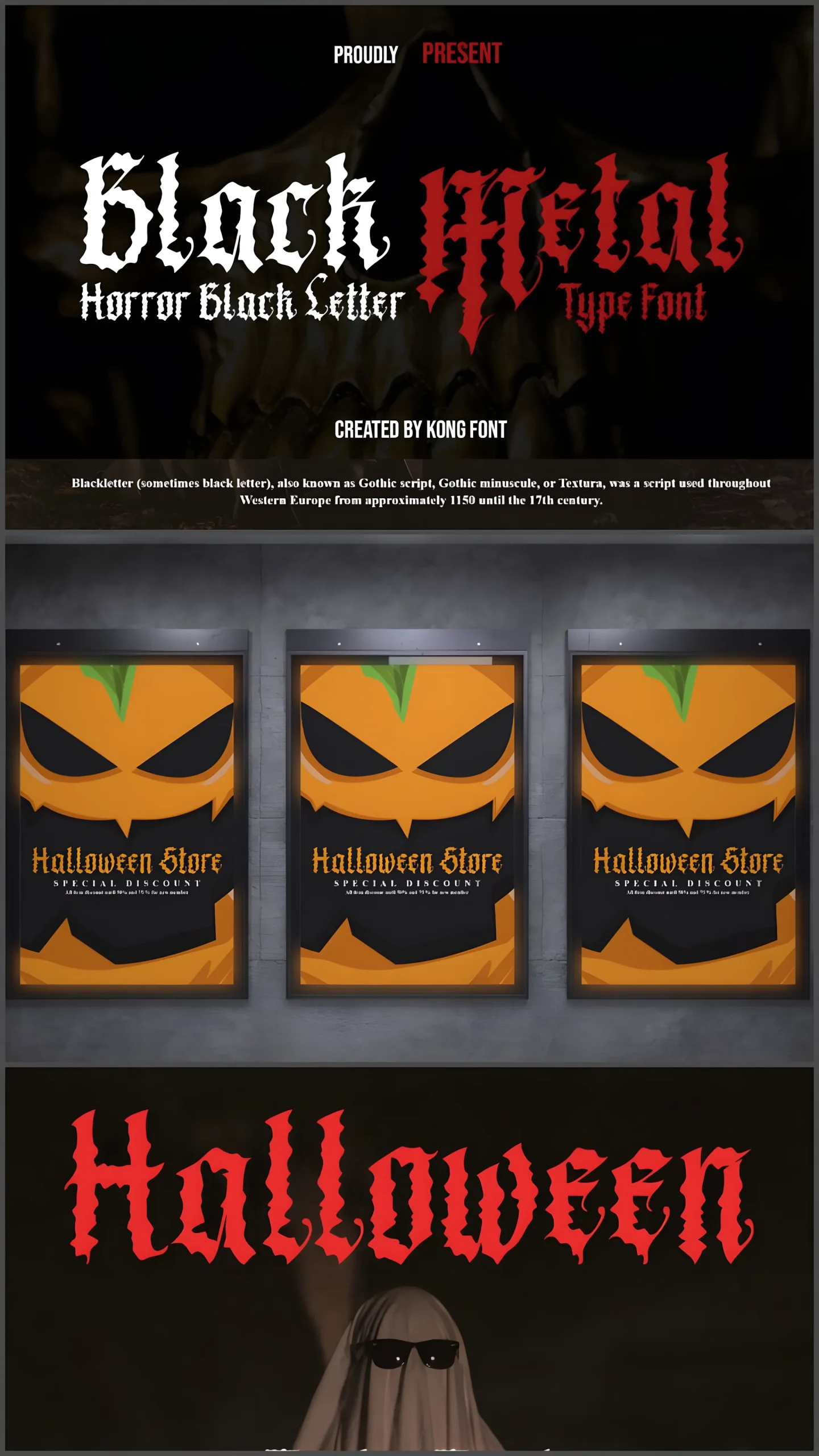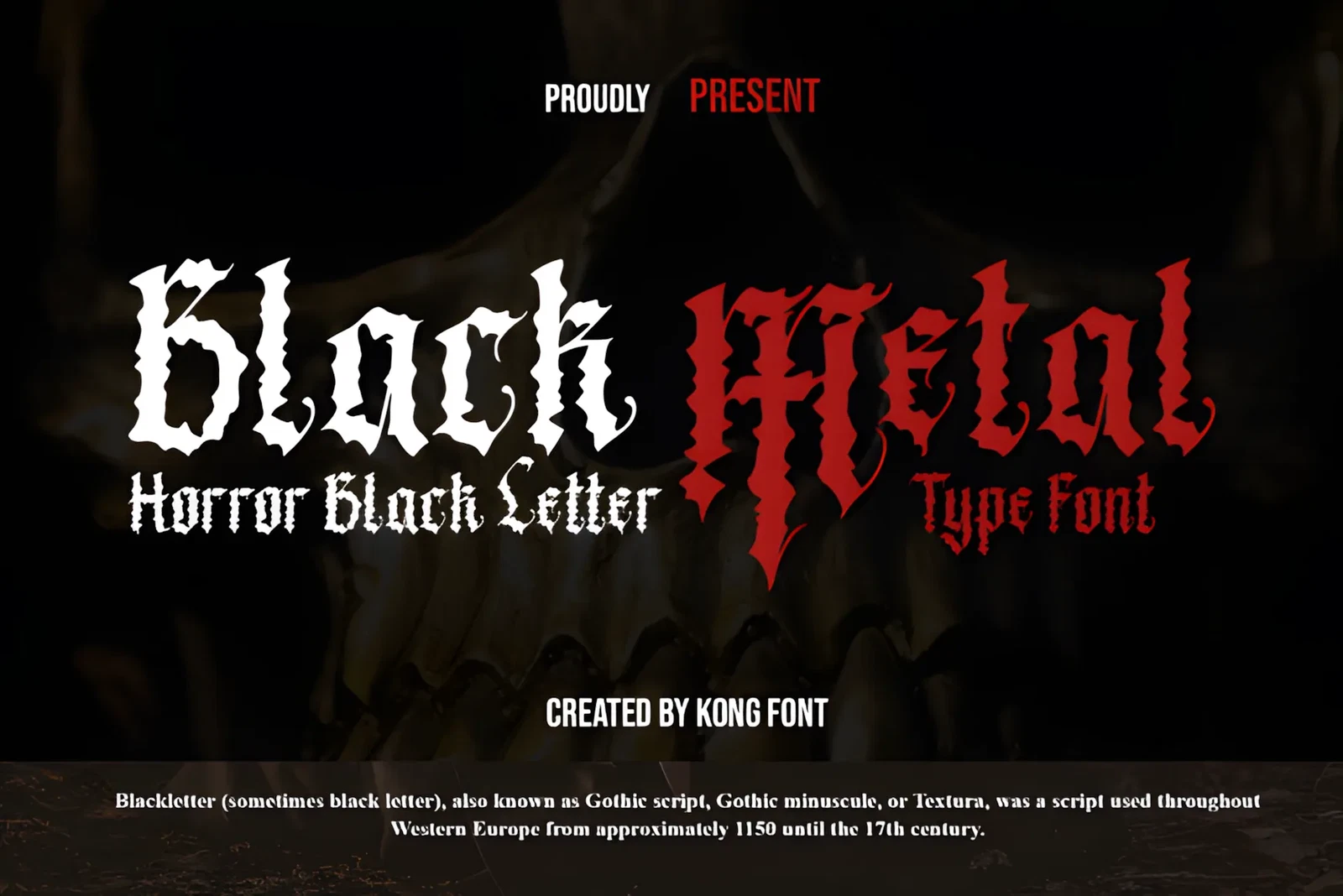
Some fonts are designed to decorate, others are built to create tension and atmosphere. Black Metal Font clearly belongs to the second group. This is a modern blackletter display typeface created to evoke darkness, fear, and raw intensity through sharp, distressed letterforms.
The font draws inspiration from gothic script and horror aesthetics, making it especially suitable for projects that need to feel unsettling, dramatic, and visually aggressive. It does not aim for subtlety — its purpose is to be seen and felt.
Visual Style and First Impression
Black Metal Font delivers an immediate sense of danger. The letterforms are jagged, rough, and intentionally uneven, giving the typography a worn and sinister appearance. Edges look eroded and sharp, as if the letters were carved rather than written.
The blackletter structure is clearly recognizable, but it is intentionally distorted to enhance the horror effect. Strokes feel broken and textured, reinforcing themes of decay, darkness, and mystery.
The first impression is eerie, intense, and unmistakably horror-driven.
A Modern Horror Take on Blackletter Typography
At its core, Black Metal Font is a blackletter typeface, rooted in gothic tradition. However, it moves away from historical elegance and embraces a modern horror aesthetic.
The font includes:
- uppercase and lowercase characters
- numbers
- punctuation
Despite the aggressive styling, the characters remain readable, especially at larger sizes. This balance allows the font to be expressive without becoming completely chaotic.
The overall design feels modern, spooky, and highly atmospheric.
Designed for Horror and Dark Themes
Black Metal Font works best in projects where mood is critical. It naturally fits designs related to:
- horror movies and posters
- Halloween graphics
- dark fantasy
- metal and alternative music
Even a single word set in this font can establish tension and set a dark tone. The typography itself becomes part of the storytelling.
Practical Design Applications
Horror Posters and Movie Titles
One of the strongest use cases for Black Metal Font is horror poster design. Titles set in this font instantly feel ominous and dramatic.
It works well for:
- horror movie titles
- thriller posters
- spooky event promotions
The rough blackletter texture adds atmosphere without needing additional effects.
Halloween and Spooky Designs
For seasonal projects, Black Metal Font fits perfectly into Halloween visuals. It enhances:
- Halloween party flyers
- spooky invitations
- haunted house graphics
The font helps designs feel dark and immersive rather than playful or cartoonish.
Music Artwork and Band Logos
Black Metal Font also performs well in music-related visuals, especially in heavier genres. It fits naturally into:
- album covers
- band logos
- concert posters
The font’s raw energy aligns well with aggressive or underground music styles.
Gaming and Dark Fantasy Projects
In gaming and fantasy design, typography often needs to establish atmosphere instantly. Black Metal Font excels in:
- game logos
- title screens
- dark fantasy branding
Its gothic structure supports immersive and dramatic visual worlds.
Readability and Usage Notes
Black Metal Font is a display typeface, not intended for long text blocks. It works best in:
- titles
- logos
- short phrases
- featured words
Spacing plays an important role. Giving the letters enough room helps preserve clarity and prevents the distressed details from blending together. Pairing it with a clean, neutral font for body text creates a balanced layout.
Digital, Print, and Craft Compatibility
Black Metal Font works across major operating systems and integrates smoothly with popular design software. It can be used in:
- digital graphics
- print layouts
- web visuals
The font is also compatible with Cricut, Silhouette, and other cutting machines, making it suitable for:
- vinyl lettering
- decals
- signage
- craft projects
Its rough edges still cut cleanly when used at appropriate sizes.
Emotional Tone and Design Feel
The emotional tone of Black Metal Font is dark, threatening, and intense. It communicates fear, mystery, and power rather than friendliness or elegance.
This makes it ideal for designs that aim to feel:
- scary
- aggressive
- mysterious
- dramatic
The font carries a strong emotional weight, which makes it effective even in minimal compositions.
Black Metal Font is a modern horror blackletter typeface built to create mood and intensity. Its distressed texture, sharp edges, and gothic foundation make it a powerful tool for dark and dramatic design.
For creators working on horror, Halloween, music, or dark fantasy projects, this font offers a clear way to communicate fear and tension through typography alone. Used thoughtfully, Black Metal Font transforms text into an atmospheric visual element that demands attention.